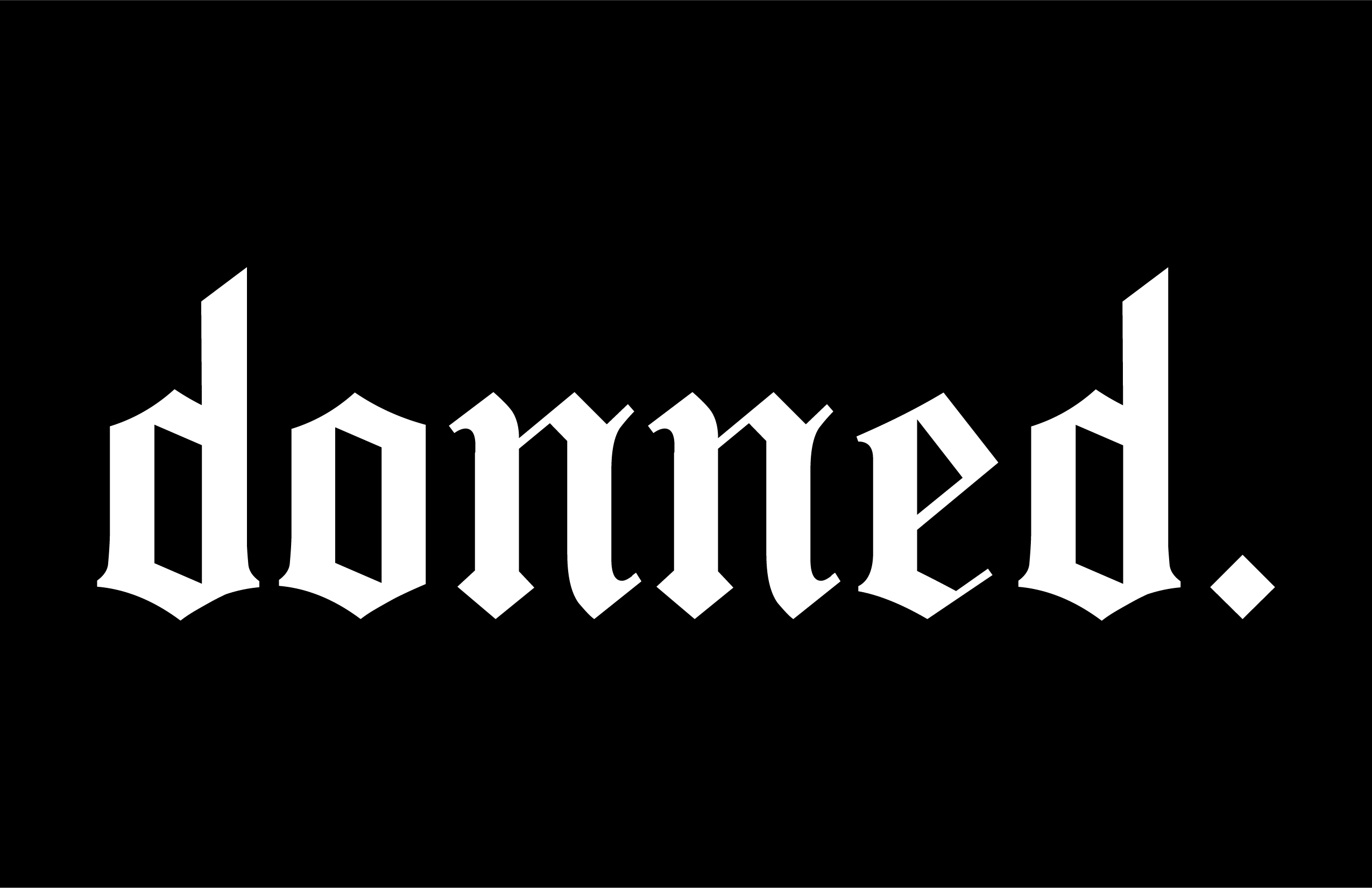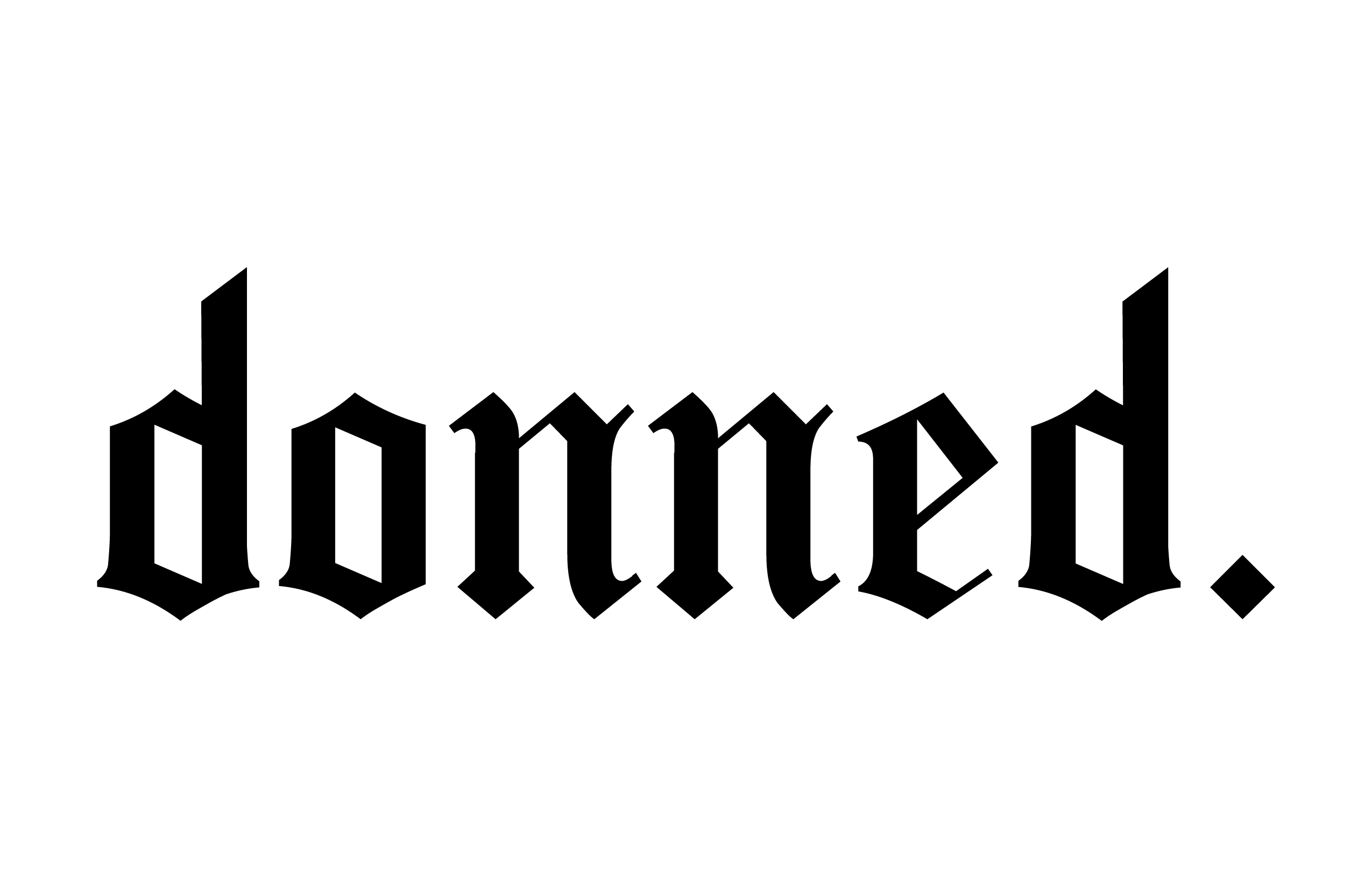
Client had an idea of what she wanted her logo to feel like, but needed assistance achieving the final look.
She wanted me to assist in creating a font that would be the basis of her new brand's logo. Client had a reference font that she provided but was open to exploring the idea of tweaking lettering to match the feel and effect she was aiming for.
The result was a logo that reflected her brand's boldness, luxury, and clean feel!